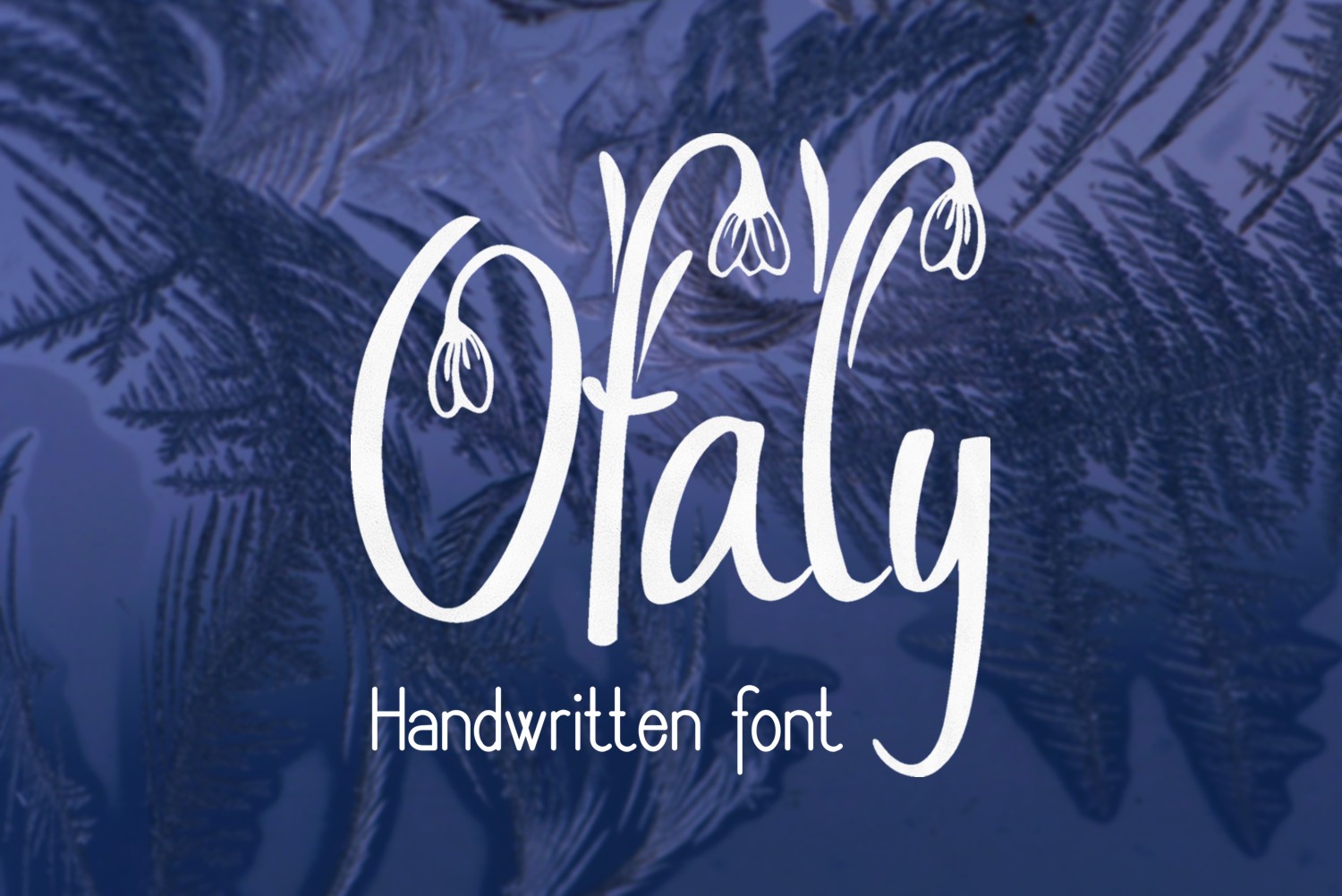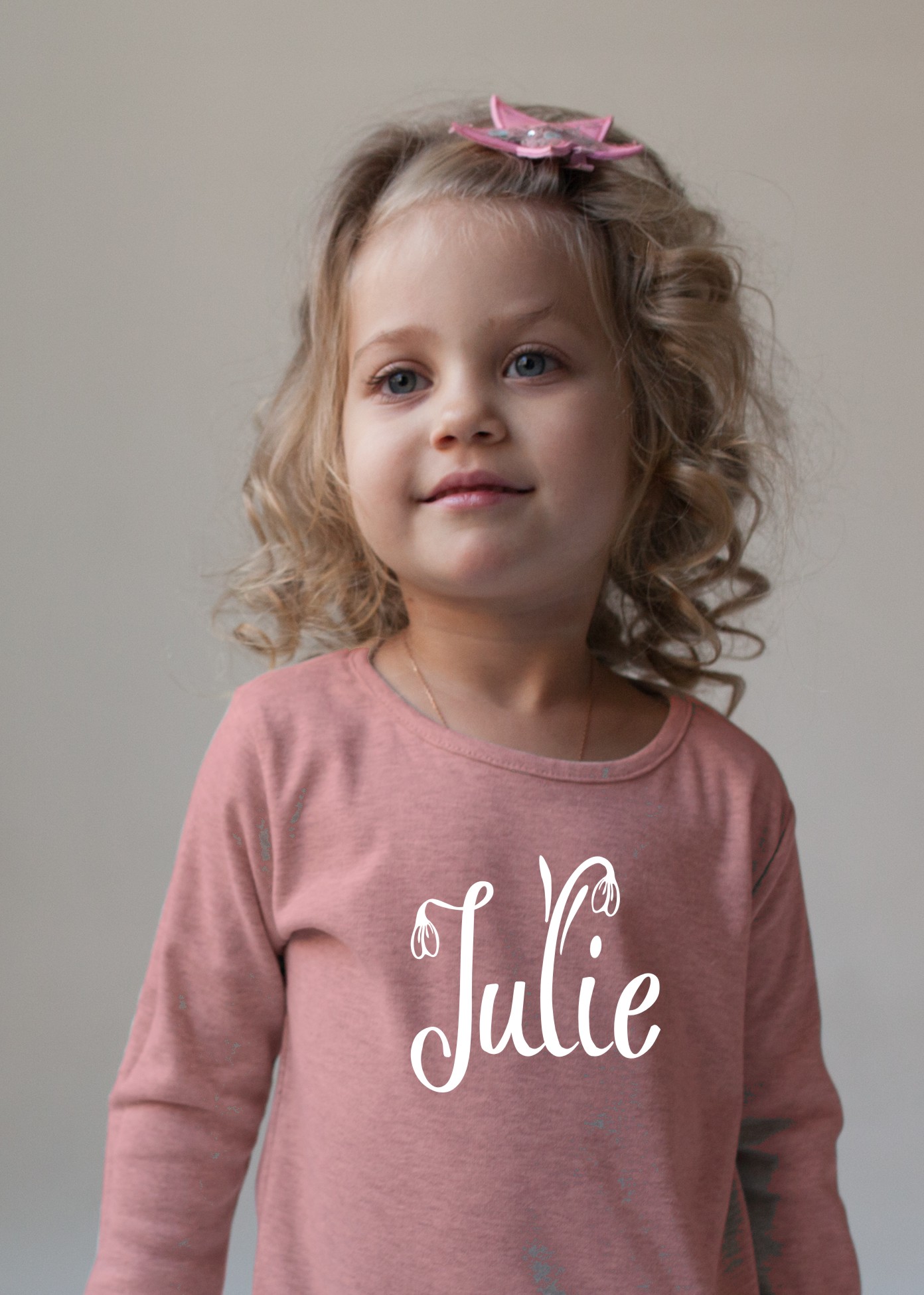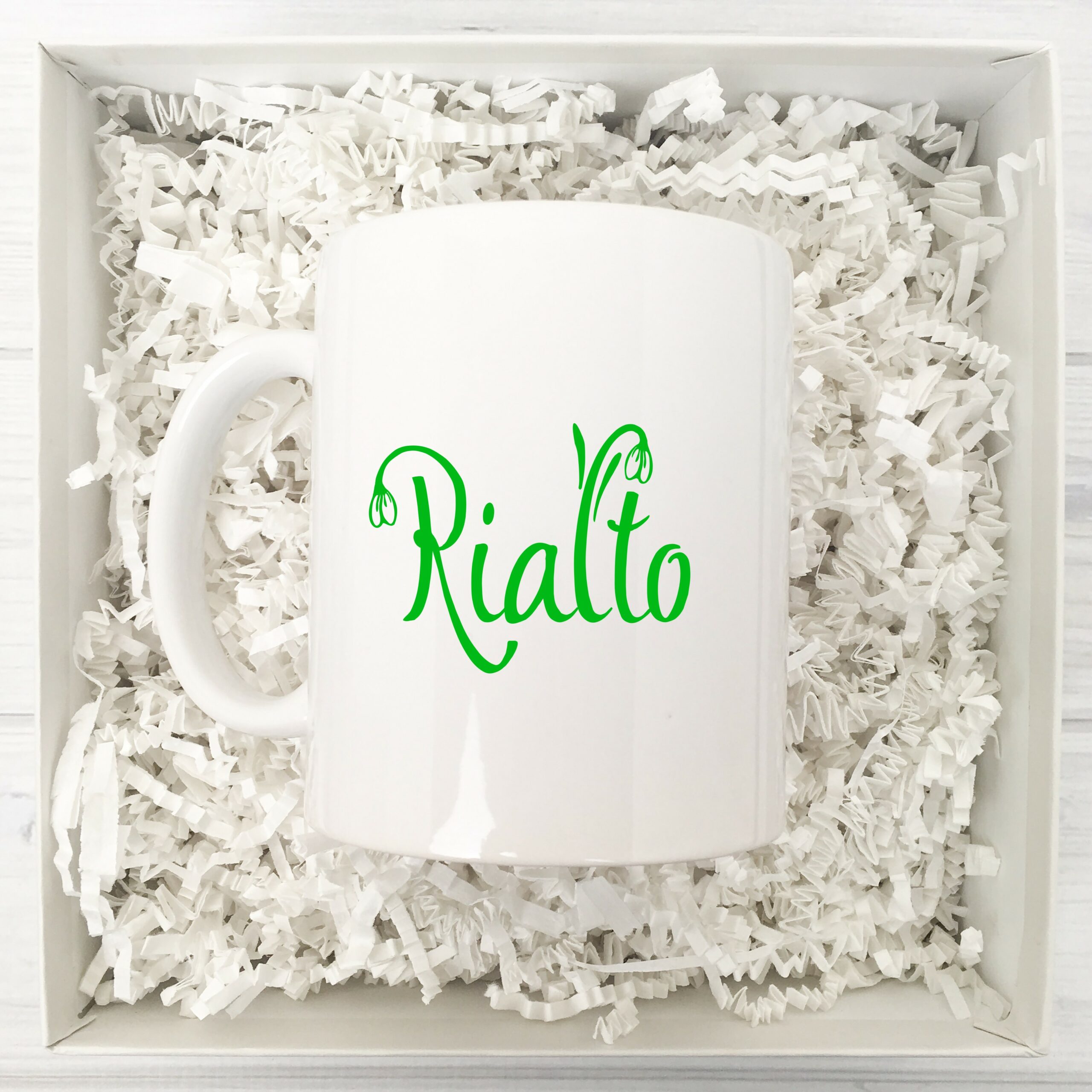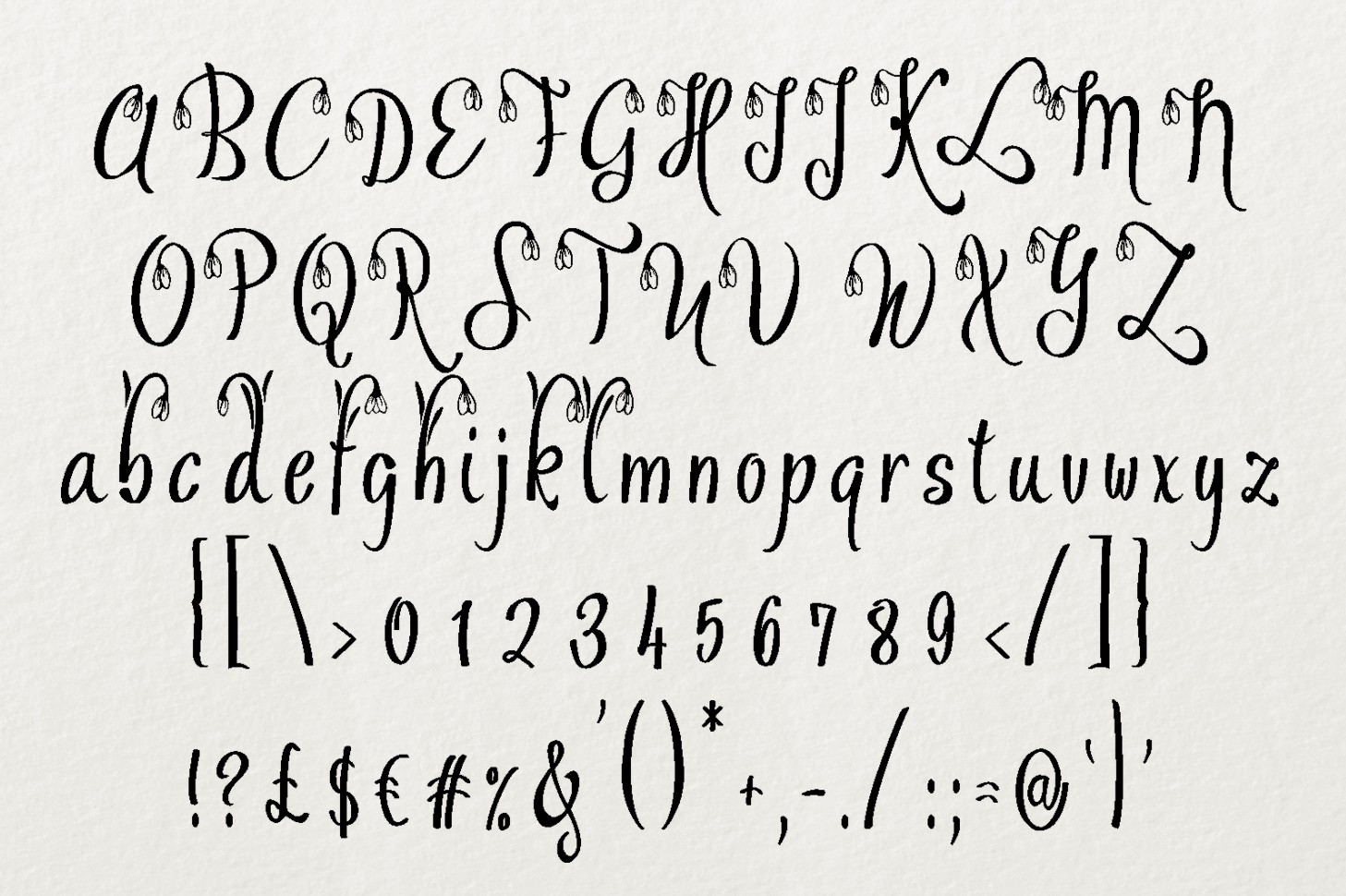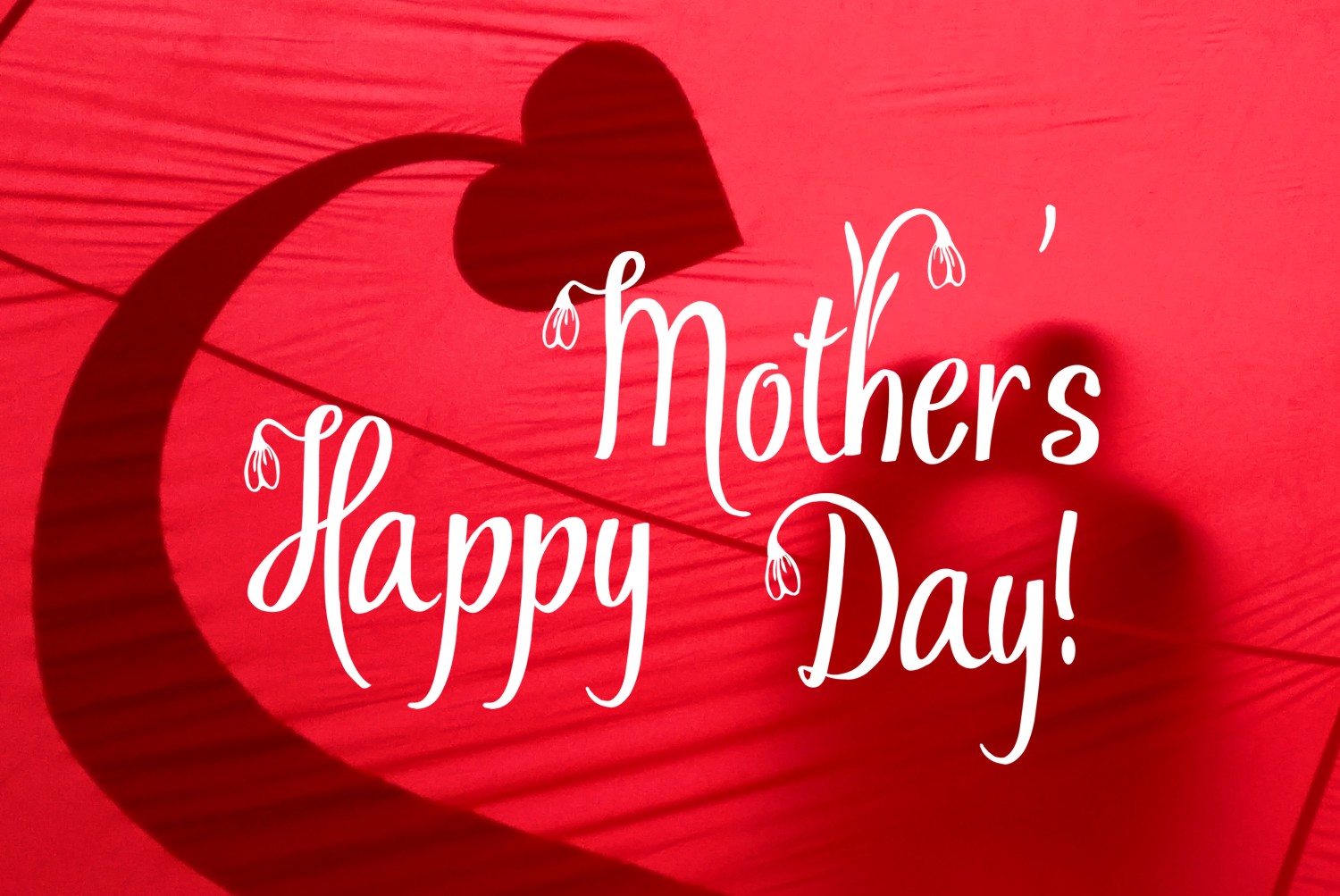
Ofaly Font
About Ofaly Font
Ofaly is a cutesy, snowdrop decorated handwritten typeface. The floral design gives Ofaly a springtime appeal, and looks great for friendly and casual designs.